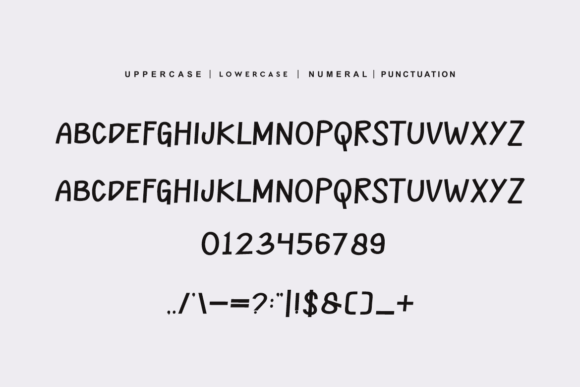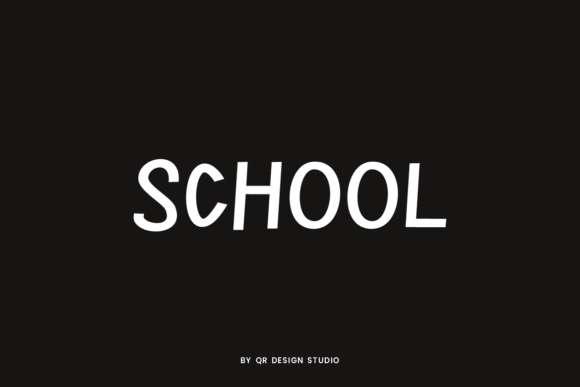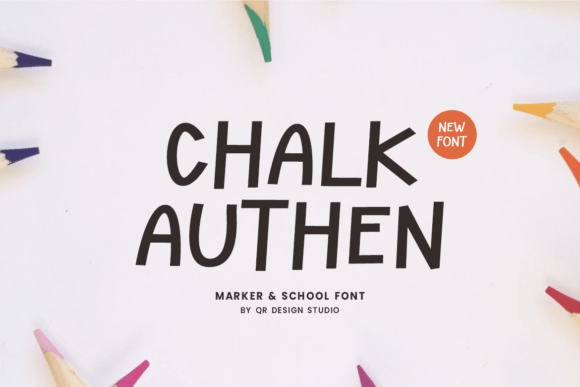
Chalk Authen Font
Chalk Authen Font is a sweet and friendly handwritten font. Its natural and unique style makes it incredibly fitting to a large pool of designs. The only limit is your imagination!